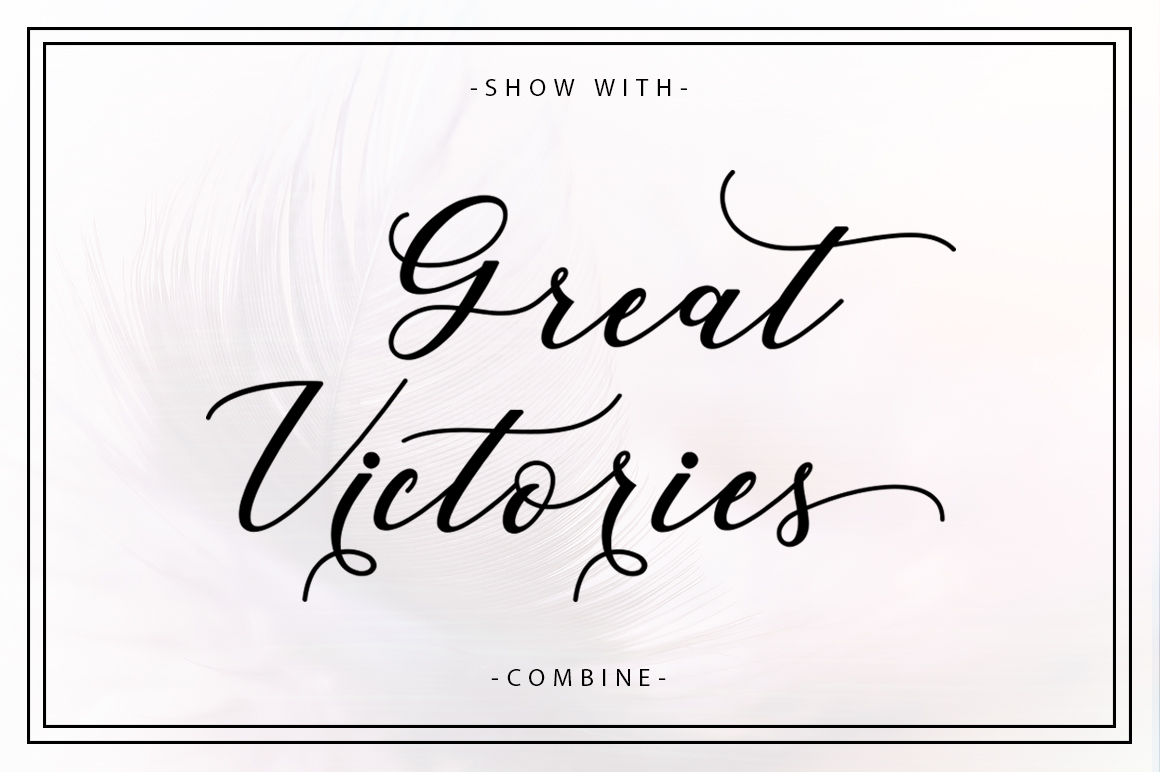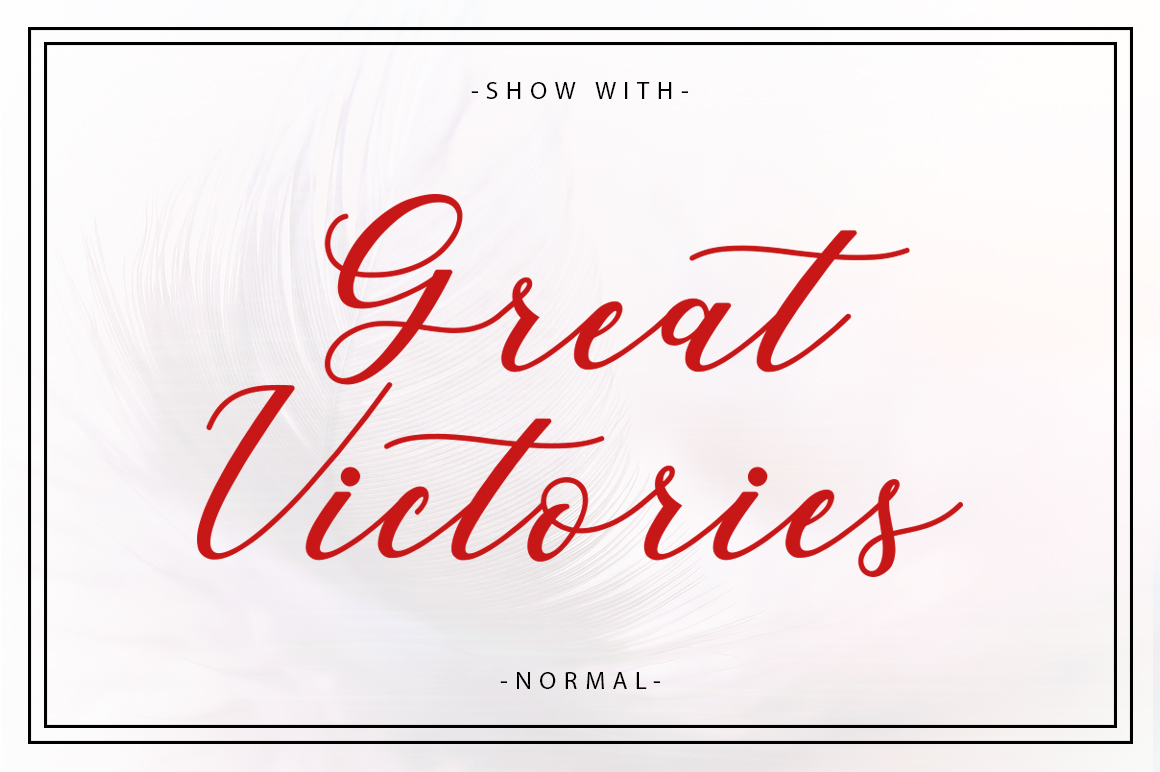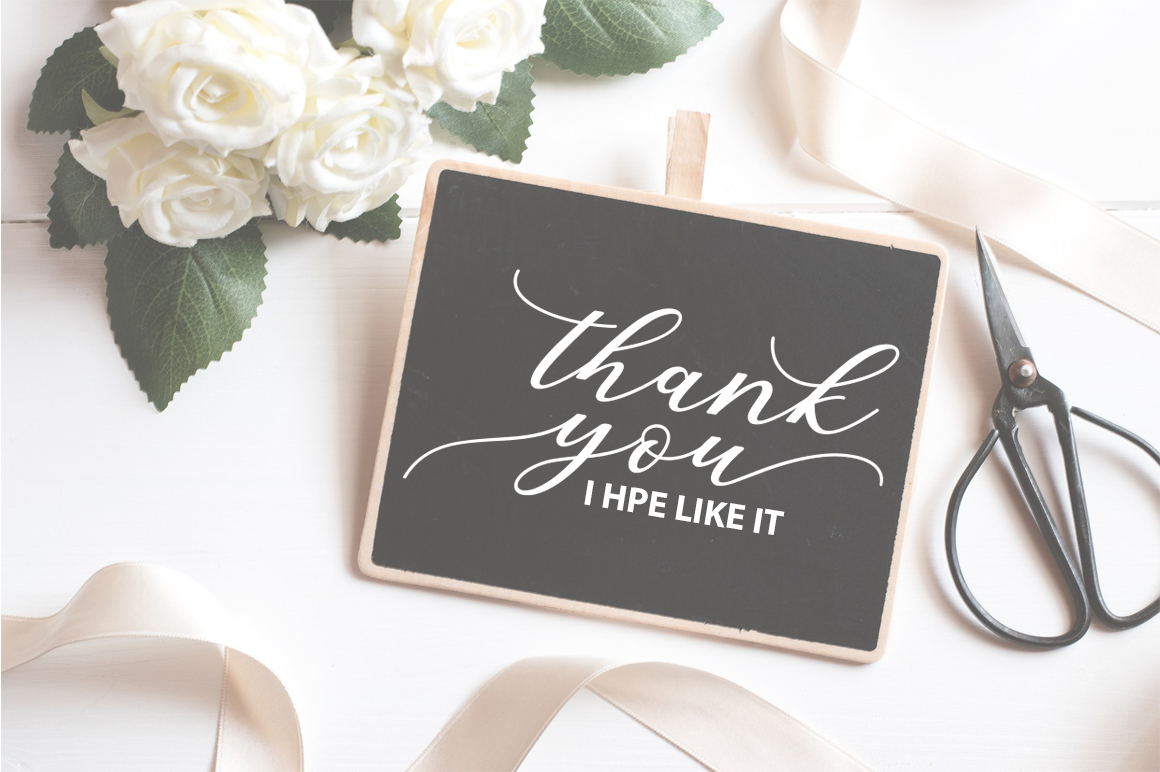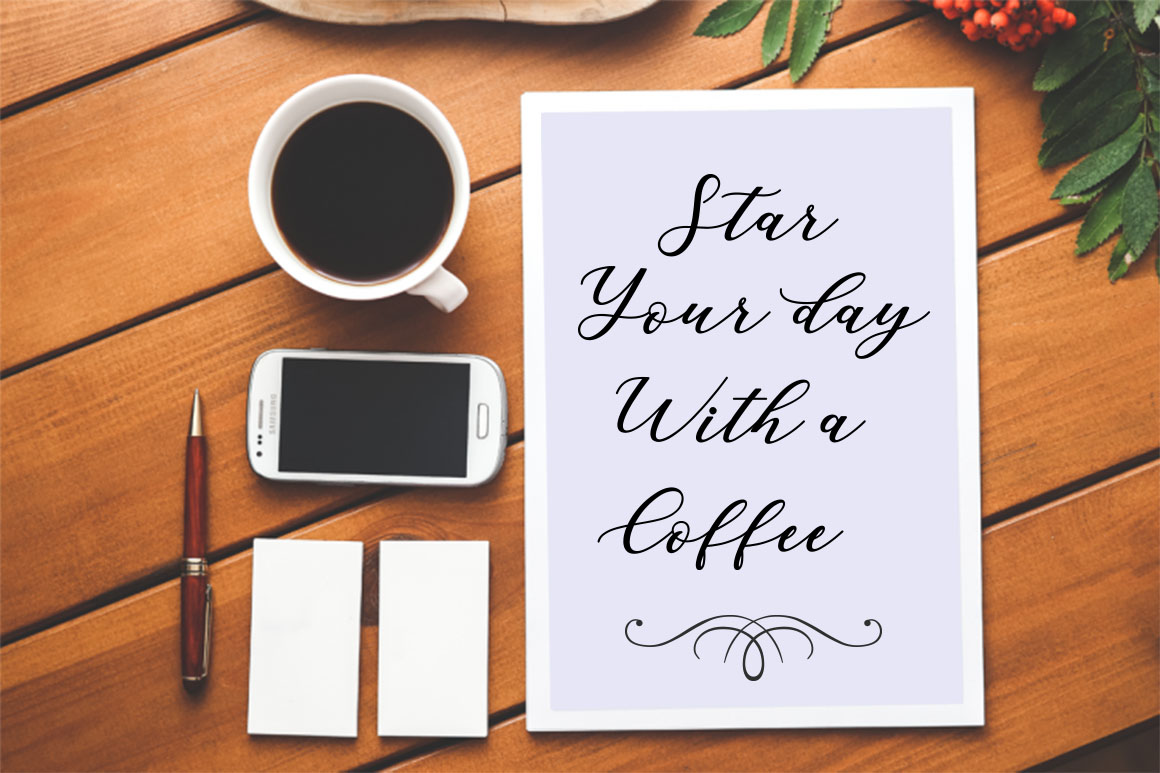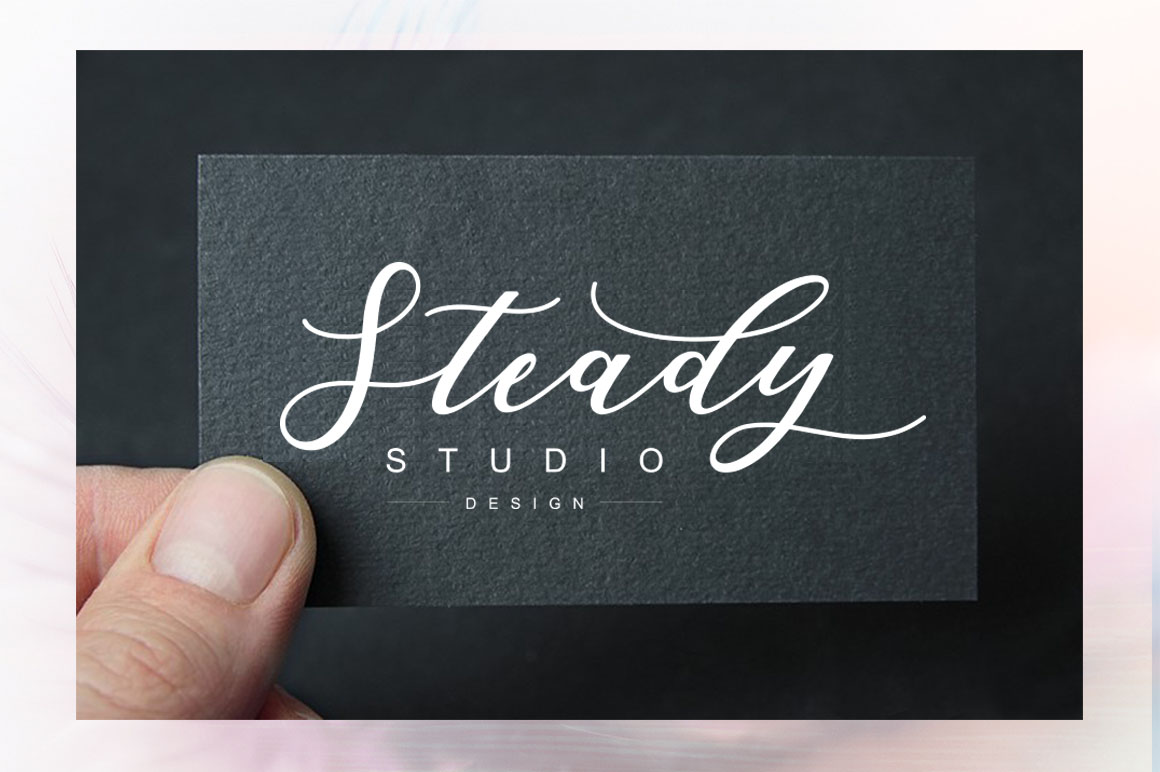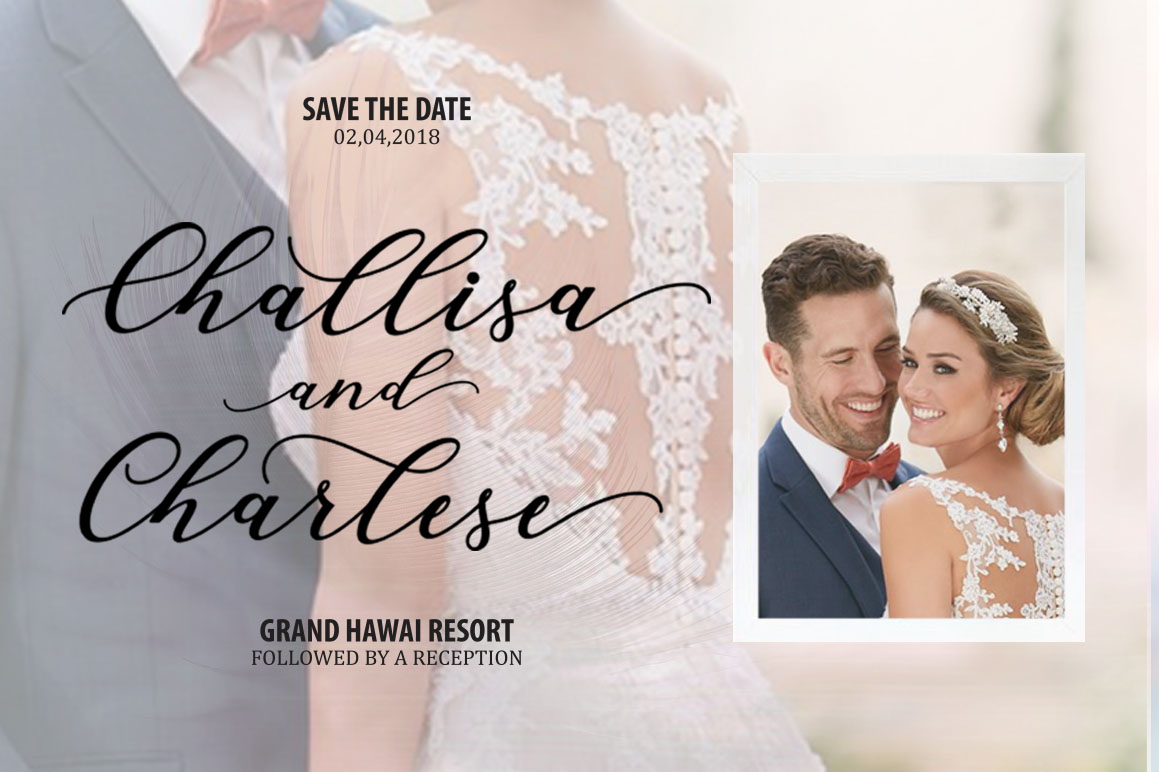
About Cintya Font
Cintya is a beautiful and modern script font, crafted to look both strong and elegant as a display for a wide range of designs. This font comes with tons of swashy character alternates and can add tons of style to your creative projects. Add this lovely freebie to your creations and take your designs to the next level!